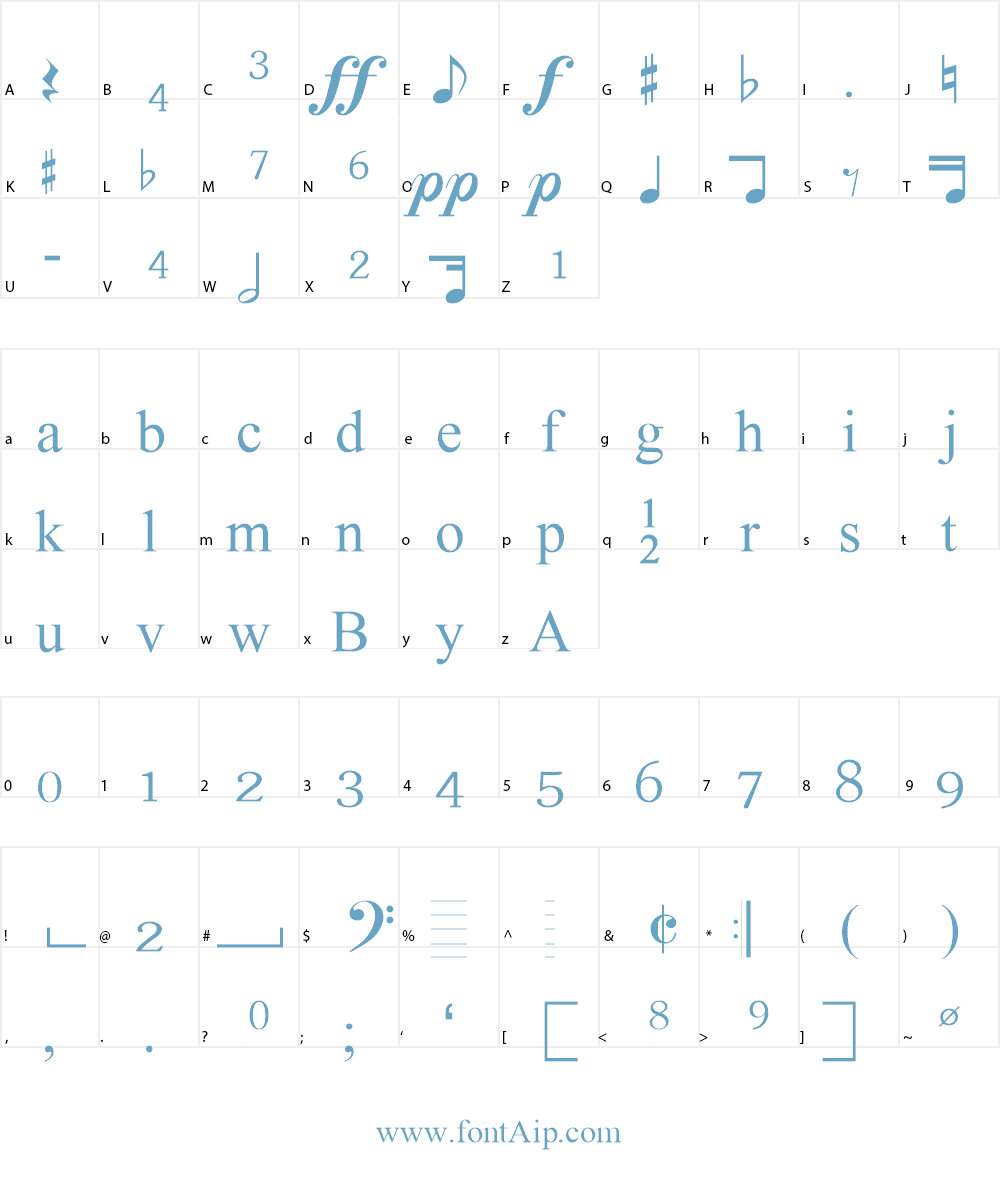
MetDemo is a subset of our Metronome/MetTimes font package. It is a fully functional truetype font with about 25% of the characters in the full package. The included character set allows users to input metronome markings, piano pedal markings and a limited number of chords and figured bass markings